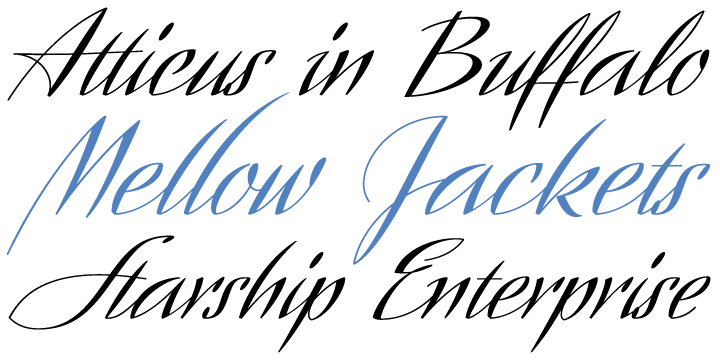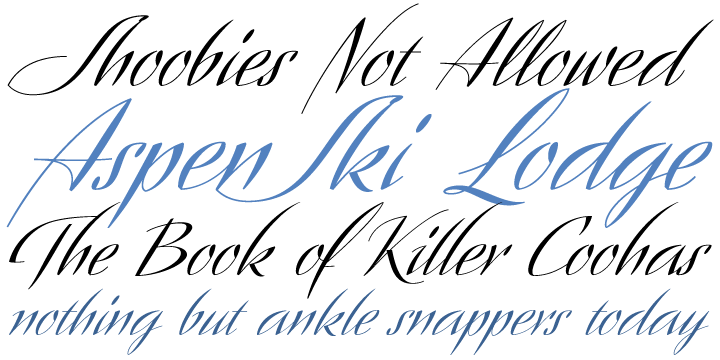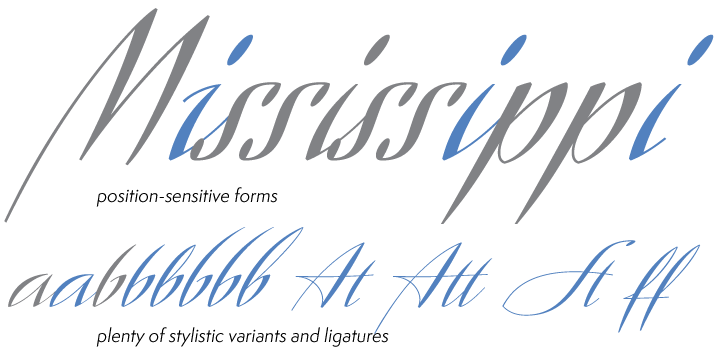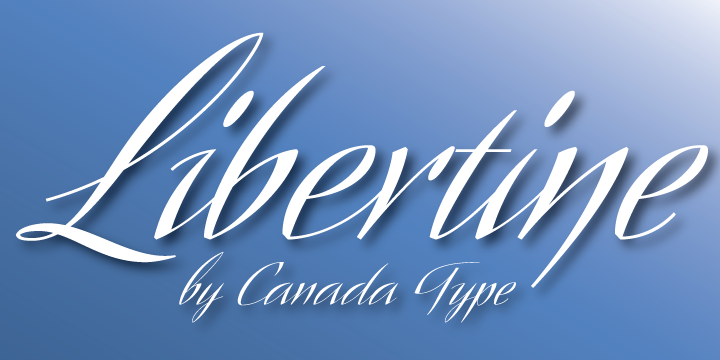
Libertine is a script font family. This typeface has five styles and was published by Canada Type.
Taking its cue from the lettering of 1930s Dutch commercial artist Martin Meijer, Libertine is a script where expert calligraphy and total wrist control are on display. With strokes stopping and starting at very steep angles and extreme contrasts, every character is a high riff jolting from within a stunning epic that brands the message home. This is the rebel yell, the adrenaline of scripts.
Libertine comes in three interchangeable fonts, each of which containing extended language support. The complete set comes with a fourth font that includes tons of alternates and ligatures and, more importantly, Libertine Pro, the 1160+ character behemoth that combines all four fonts for advanced typography environments, where automatic ligatures, stylistic alternates, and position-sensitive forms are seamlessly put to good use.